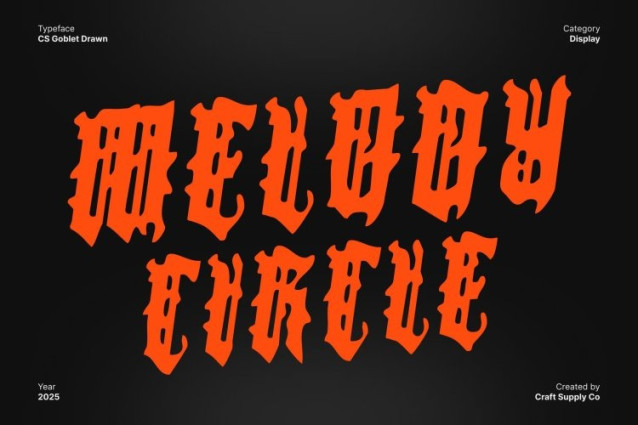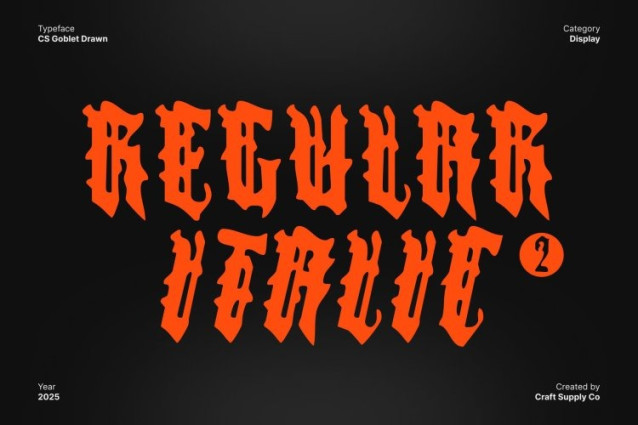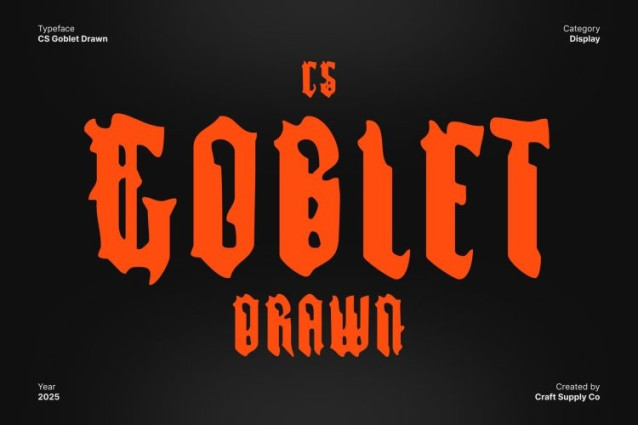
CS Goblet Drawn Font This is a powerful blackletter display typeface crafted to command attention with its dark, dramatic character. Featuring sharp, angular strokes, this font delivers an unmistakable presence rooted in heritage typography. Its intense visual weight and striking silhouettes make it ideal for designs that seek bold expression, medieval influence, or a dramatic atmosphere.
Ornamental Artistic Details for Classic Gothic Charm
The font’s ornamental artistic elements enhance its timeless blackletter appeal, adding richness to each character. Decorative touches and refined flourishes give the typeface a historical, crafted feeling perfect for gothic posters, beer labels, heritage branding, or projects inspired by old-world elegance.
Soft Drawn Texture for Brutal Yet Handcrafted Personality
This font stands out with its hand-drawn texture, which softens the rigid Gothic structure while adding a brutal, raw edge. The drawn effect introduces irregularities and organic imperfections, giving the font an expressive, tactile charm. This combination of softness and harshness creates a visually compelling contrast making the font look authentic, rugged, and artistically powerful.
Perfect for Gothic Themes, Packaging, and Heritage Branding
Whether used for dramatic posters, vintage-inspired packaging, craft beer labels, metal designs, or traditional branding, delivers depth and authenticity. Its mix of harsh blackletter geometry, handcrafted texture, and expressive brutality allows it to shine in impactful display settings.